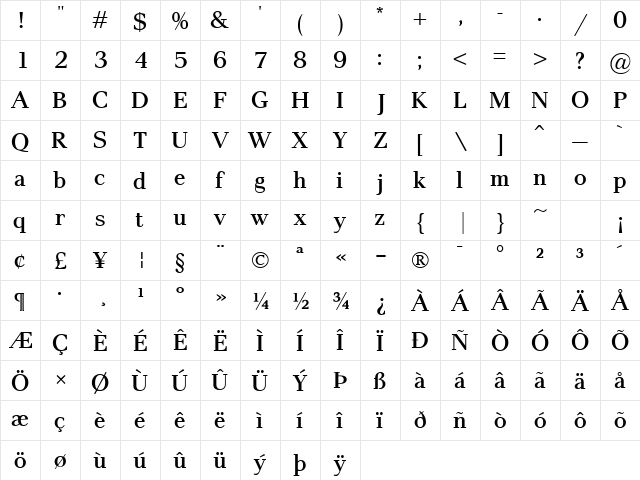
Pax SemiBold Regular
Design Context for Pax SemiBold Typeface
Pax SemiBold takes a measured approach to typography — its balanced proportions and neutral character make it a reliable workhorse for both digital and print work. Its bold stroke weight gives it real presence on the page.